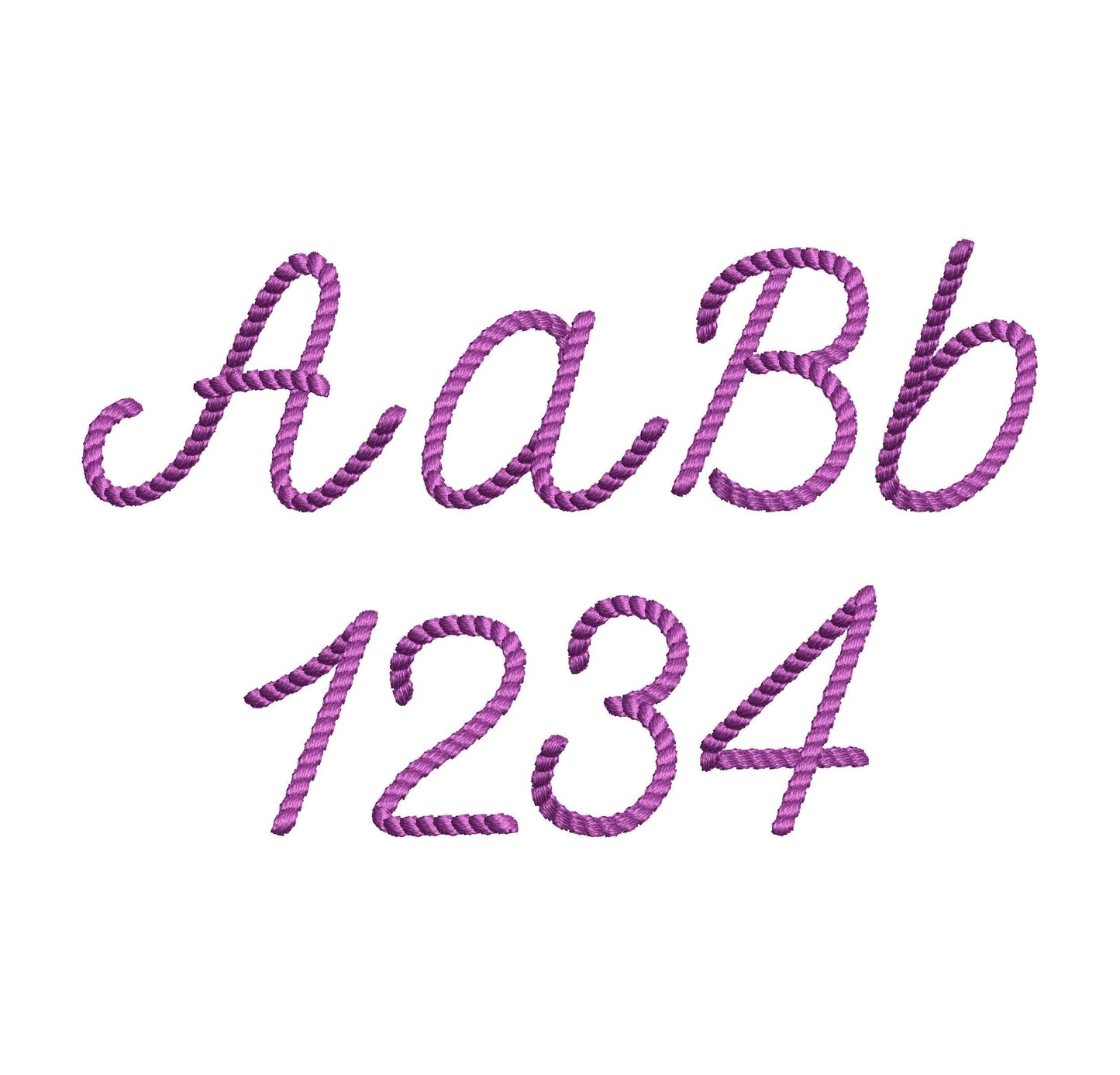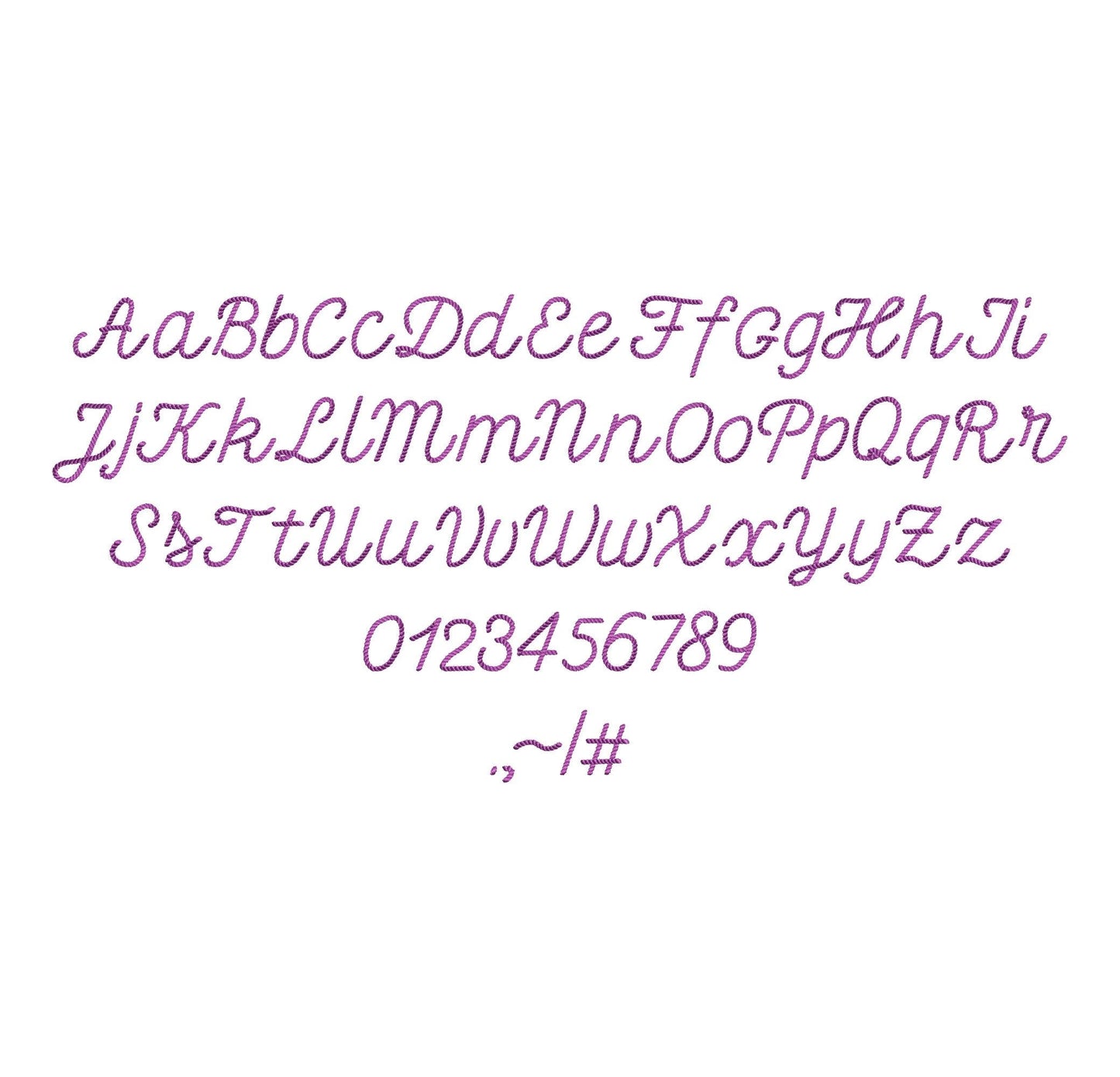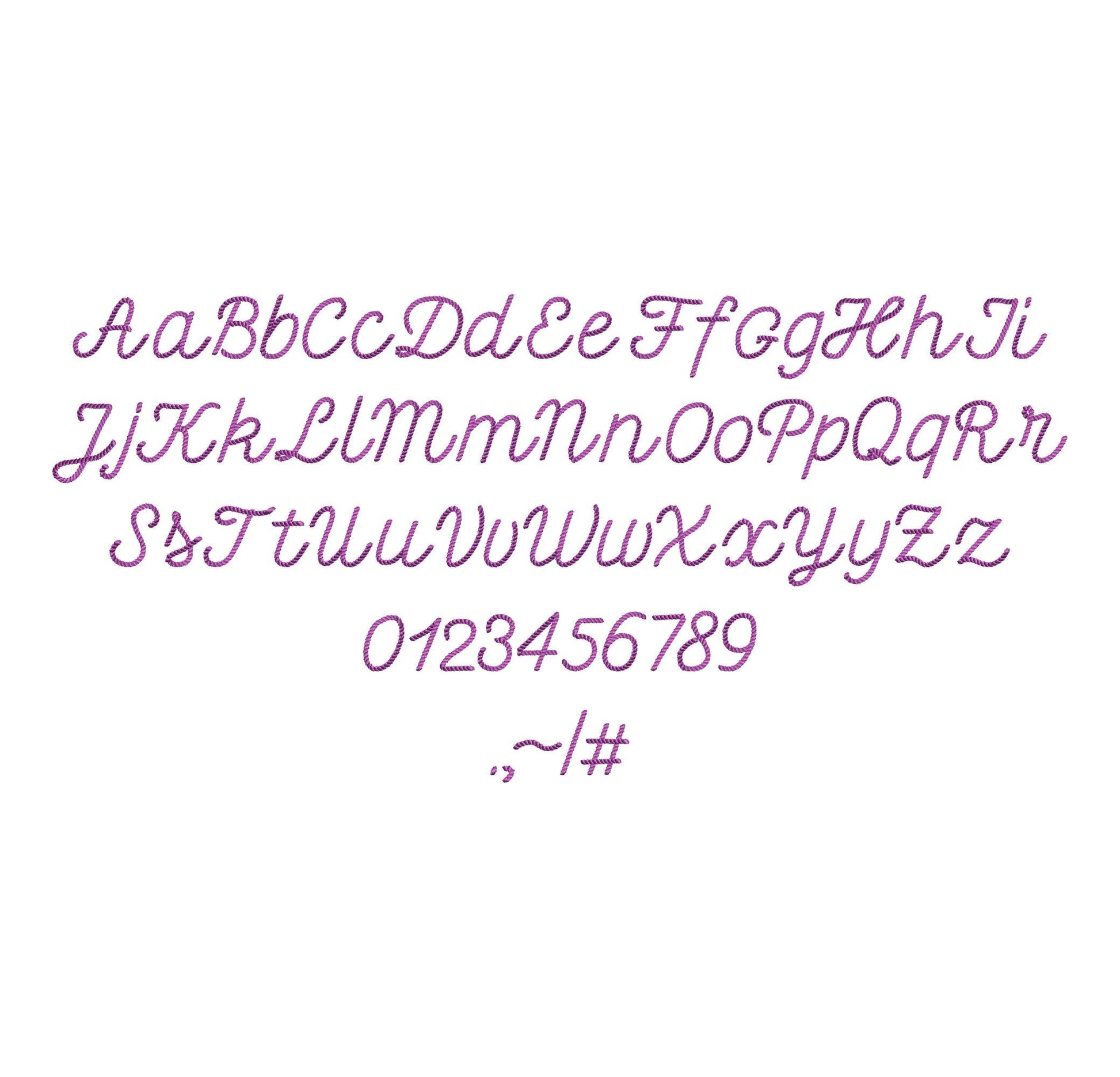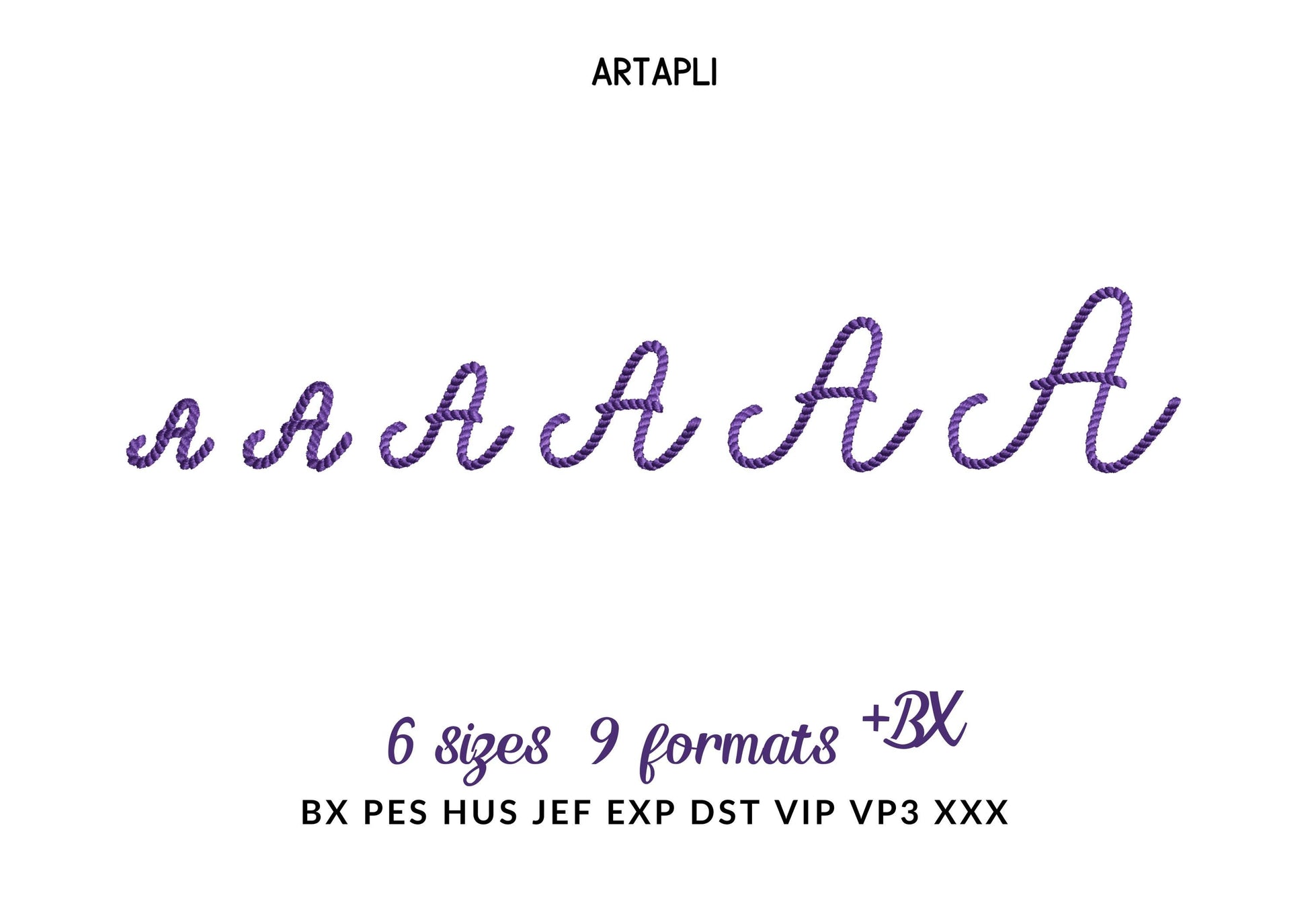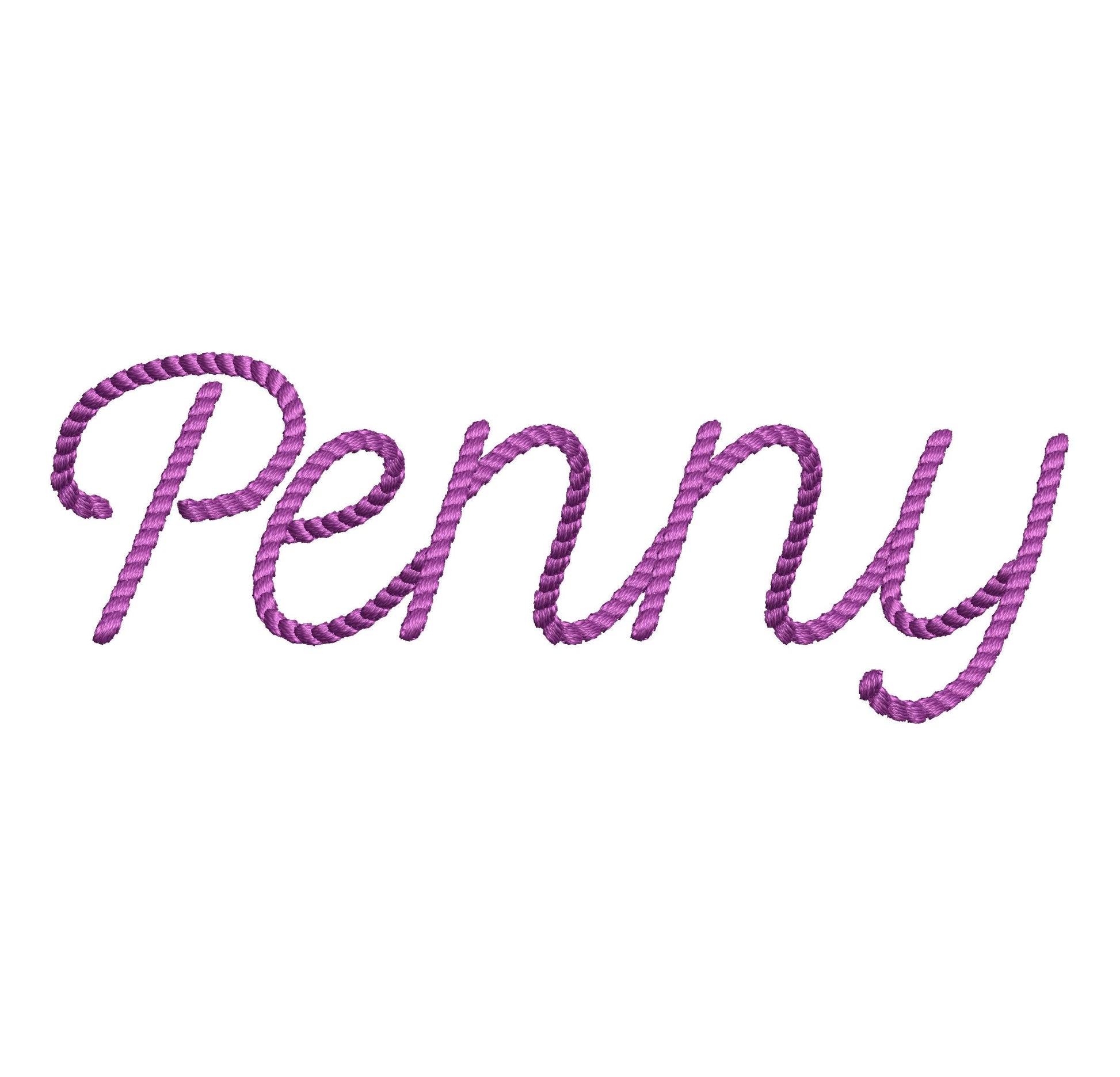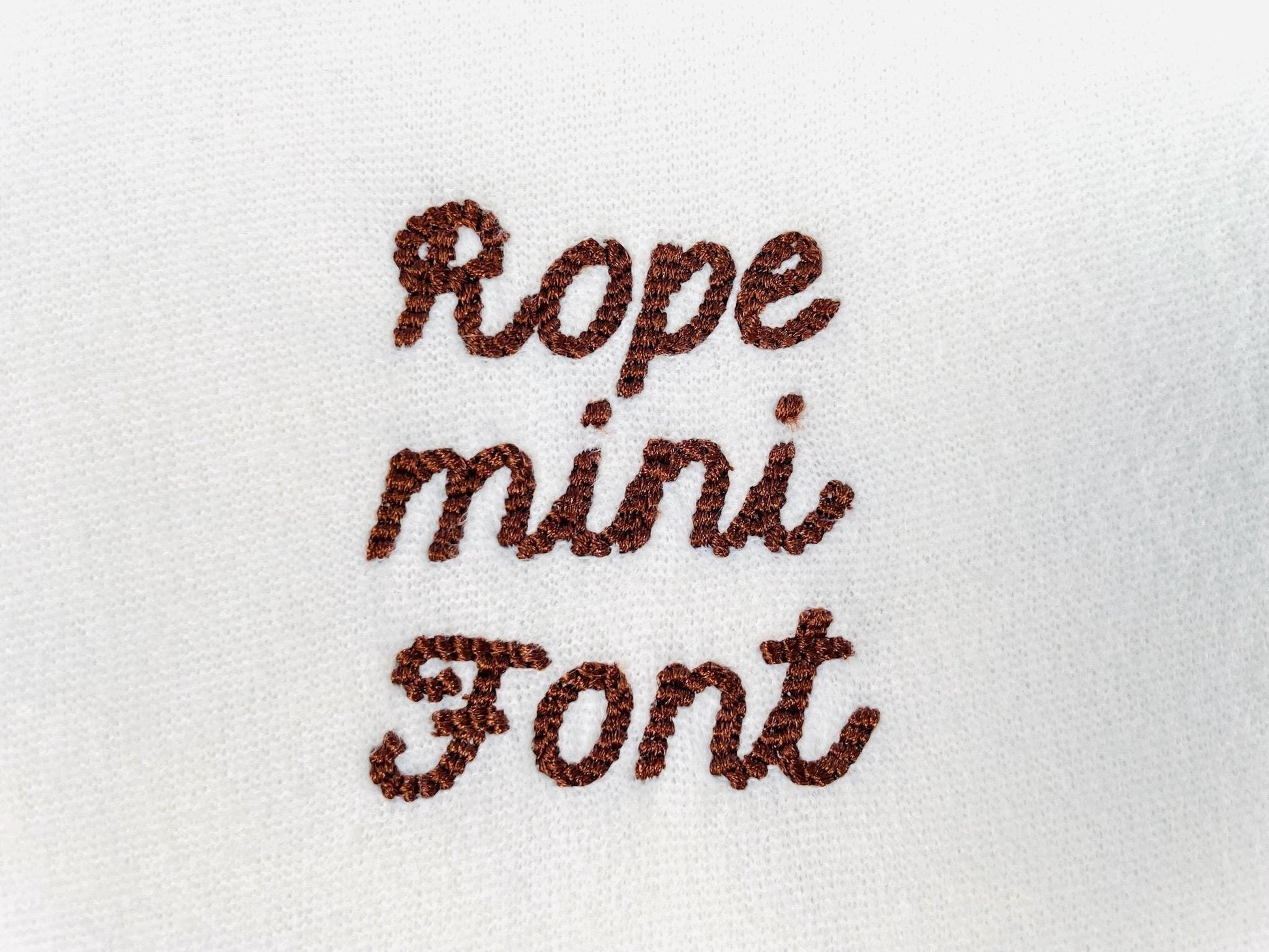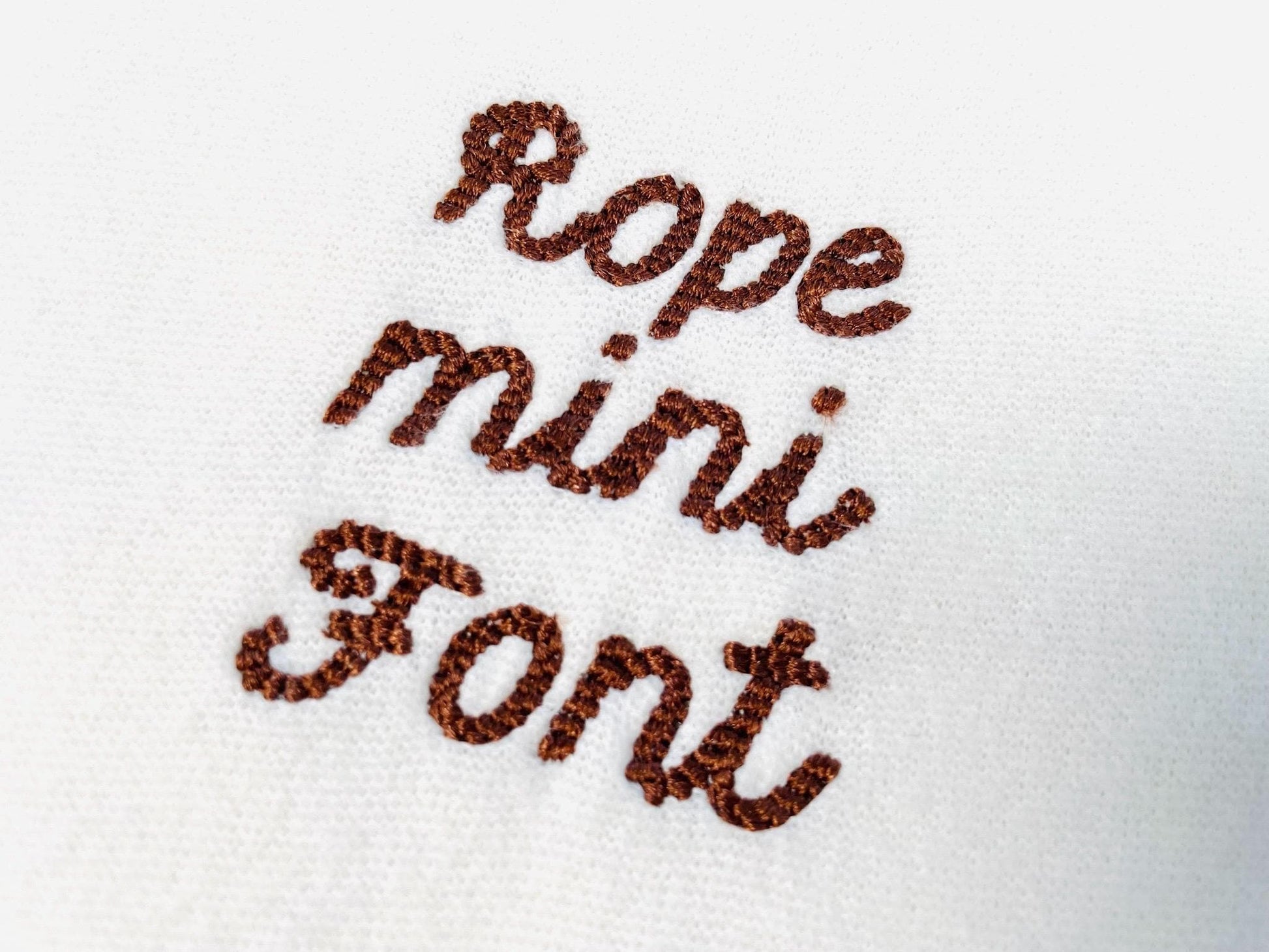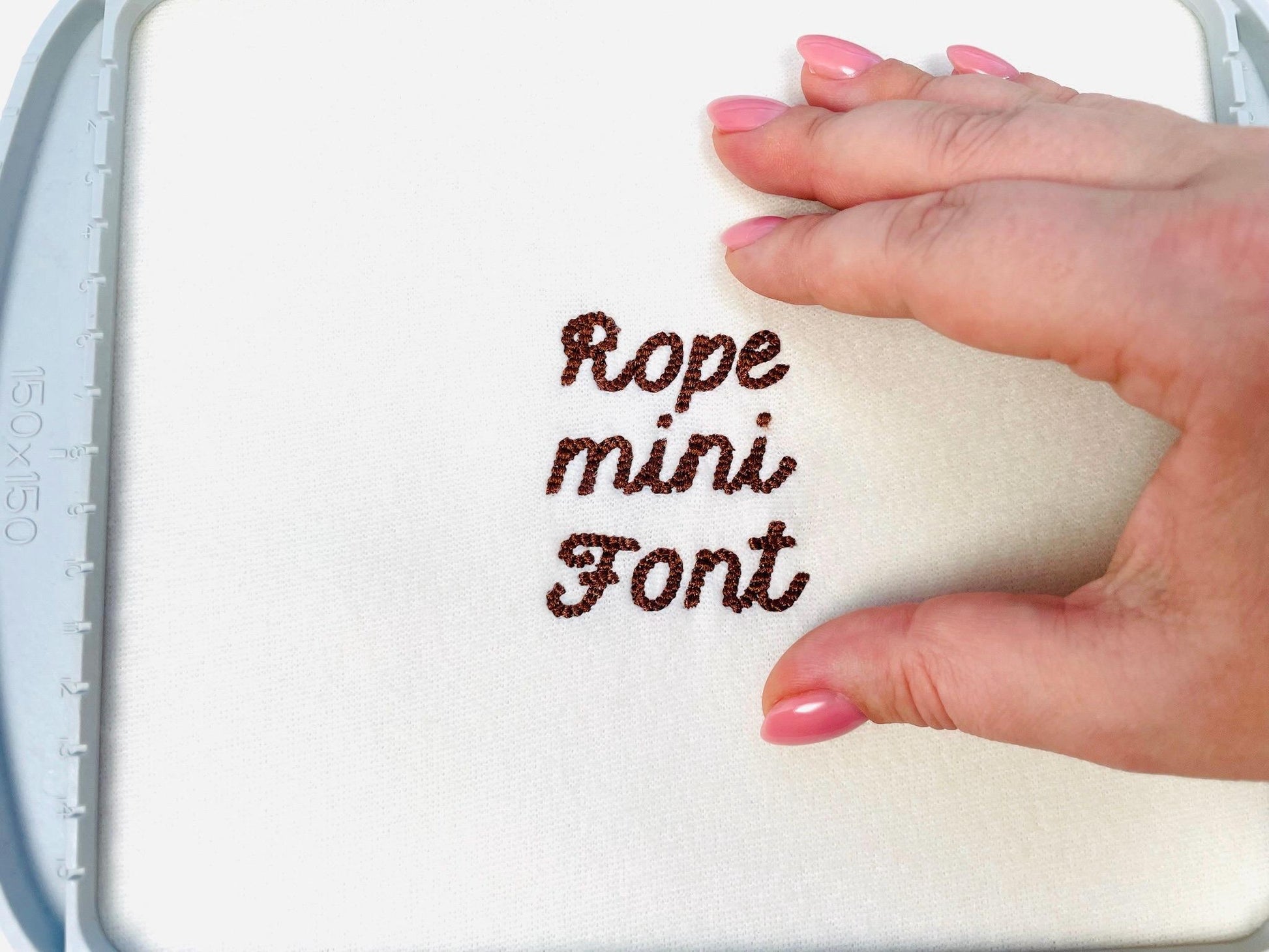
Or click to open the linkA mini rope stitch handwritten font with a textured, western feel. Great for cowboy and cowgirl names, small monograms and kids' clothes.
The letters come in six mini sizes: 0.6, 0.7, 0.9, 1, 1.3 and 1.5 inches. A rope stitch gives the letters a twisted, textured look. Includes uppercase and lowercase letters A to Z, numbers 0 to 9 and punctuation.